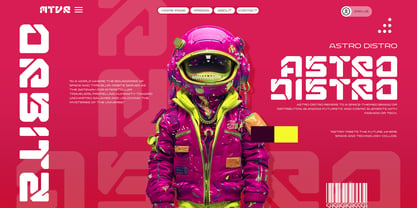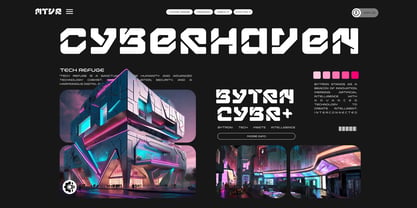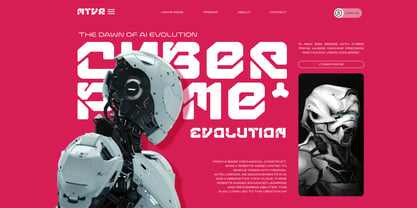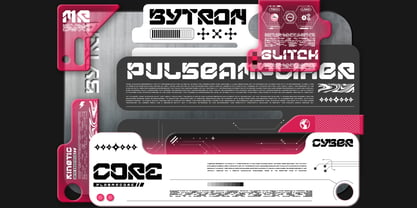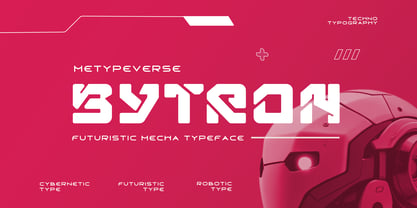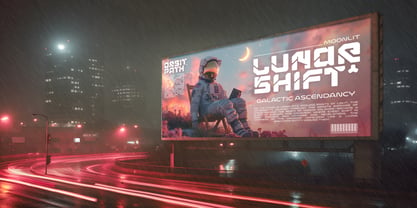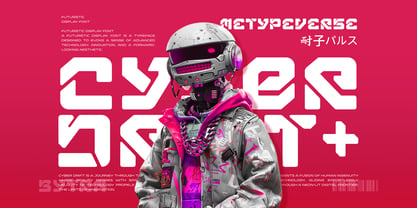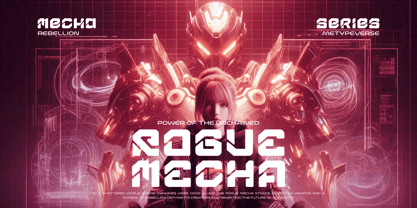
Bytron
by Metypeverse
The Bytron Font Family was designed by Mohamad Ridwan and published by Metypeverse. Bytron contains 2 styles and family package options. More about this family
You already imagined the machine. Now give it a voice.
Bytron brings a sharp mechanical character to mecha, robotics, cyberpunk, sci-fi, and futuristic design. Its engineered forms help titles, posters, game graphics, tech branding, packaging, and digital visuals feel like they belong to the world you are building.
Made for concepts that need more than a generic futuristic look, Bytron adds structure, tension, and personality—so your design feels engineered from the inside out, not simply decorated on the surface.